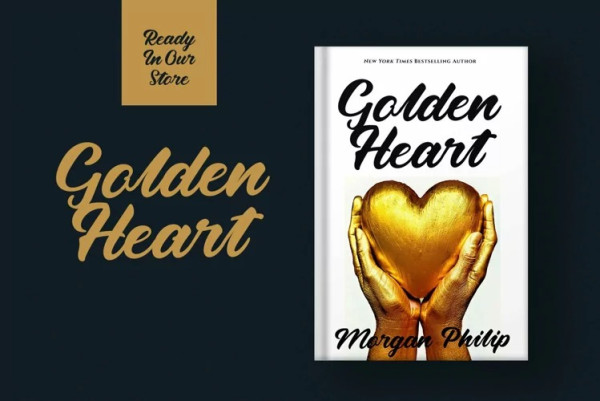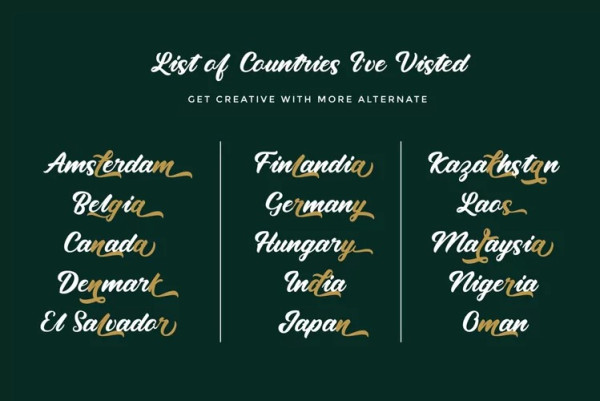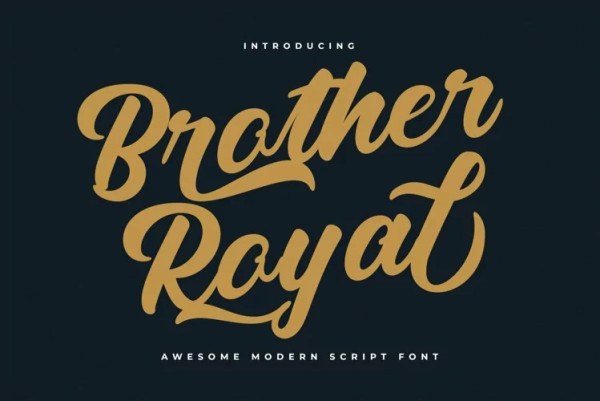
Brother Royal Font
Brother Royal Font is Inspired by modern Hand Lettering style. Every single curve has personality touch. It is great for making logotype, branding, promotional ads, quotes design, packaging, t-shirt design. merchandise, poster, merchandise, social media and much more. Coming up with more than 100+ stylistic alternates with begin. swash and end swash, you can make so many alternative choices based in your creativity. Brother Royal is here to make your work or your business to high level!!!